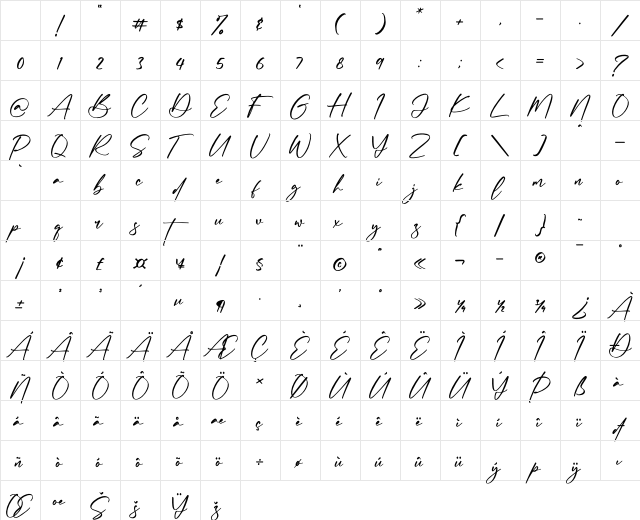
Complete Abigaila Signature Regular glyph index. Displaying only characters natively supported by Abigaila Signature Regular font.
Abigaila Signature is a composed and adaptable typeface that performs quietly and consistently across a wide range of design contexts.